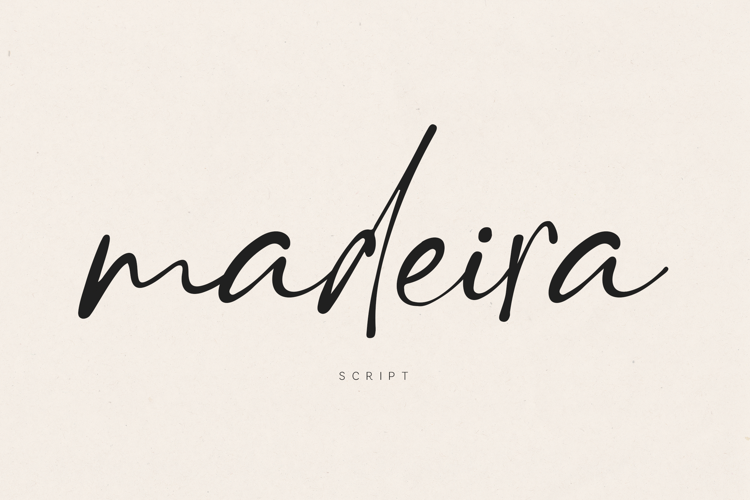
Madeira Script
Introducing the new beautiful Madeira Font Script! with subtle connections and exceptional charm, Madeira is perfect for logos, wedding invitations, stationery designs, branding projects, photo overlays, editorial features, and more.
Madeira is built with OpenType features and includes swash start, end, number, punctuation, alternative, binder and also supports other languages :)